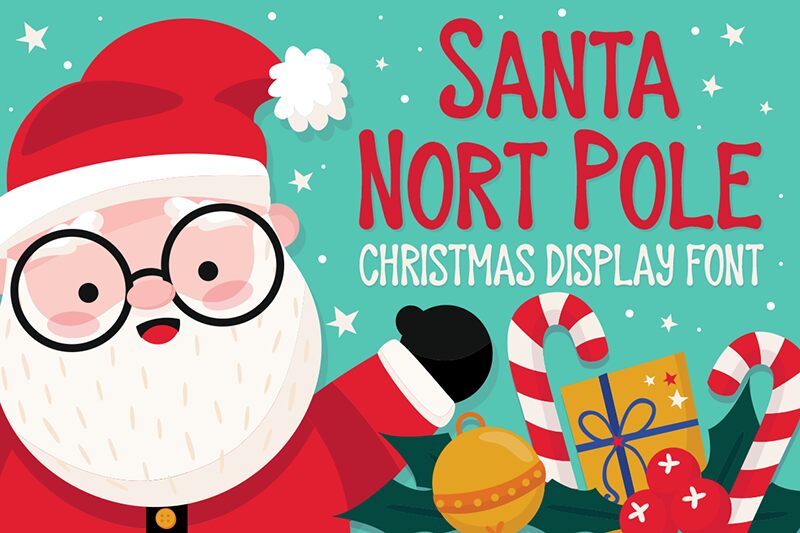
Santa Nort Pole font family by Gilang Ternadho features 2 font styles with a decorative Holiday theme that is informal, festive, friendly, and whimsical. This free font family is contemporary, making it an inviting tool for all those who want to add some cheer to their designs. Santa Nort Pole presents a clean and warm style without lacking elegance, making it versatile for your various seasonal designs.
The font with its lighthearted and playful appearance can be used for invitation cards, letters to Santa, social media posts, posters, and branding designs. Be enthusiastic with your Christmas UI or UX designs and give a lovely holiday feel to your morning Christmas coffee.